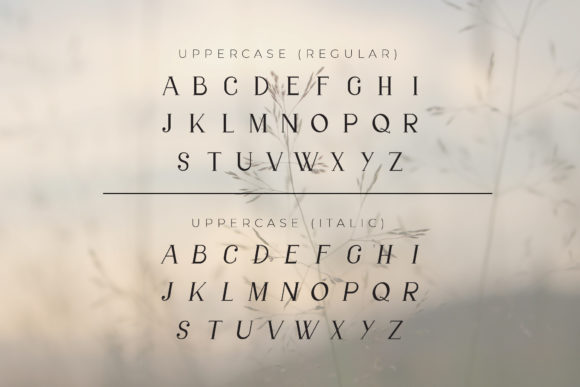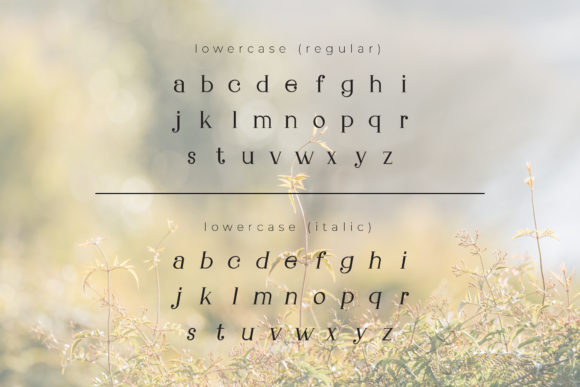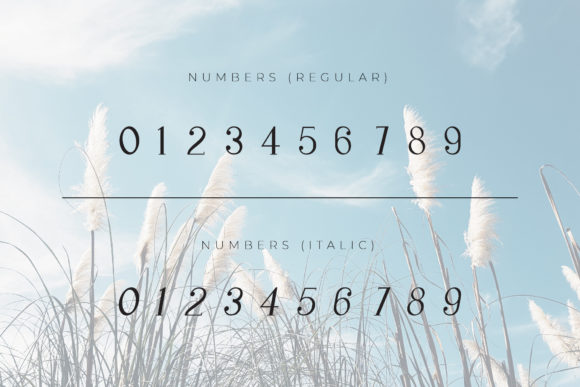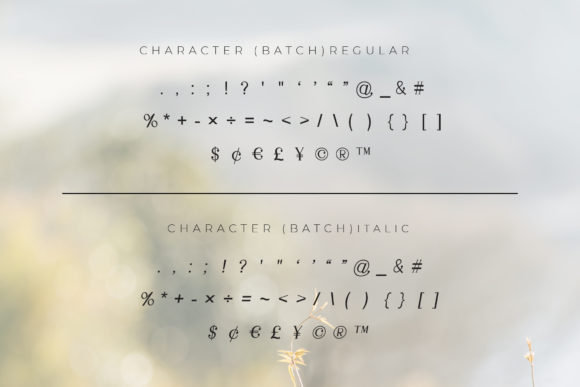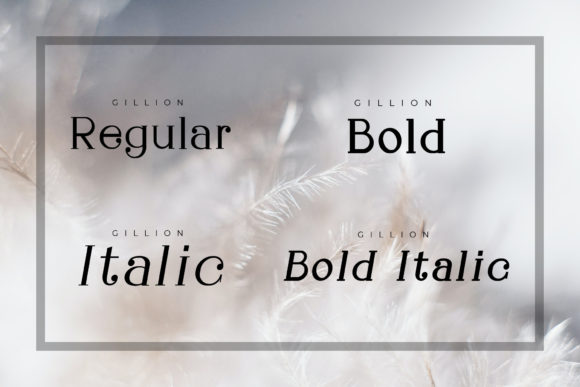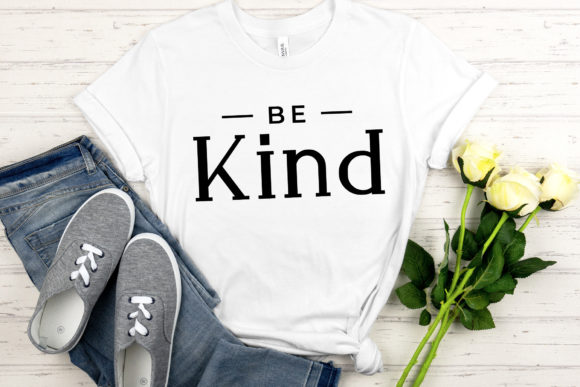
The Delicate Charm of Gillion Font: A Designer’s New Best Friend
I still remember the time I was working on a wedding invitation project, and my client asked for a font that was elegant, yet not too ornate. I scoured the internet, trying out font after font, but nothing seemed quite right. That was until I stumbled upon Gillion Font. Its delicate serifs and unique characters immediately caught my eye, and I knew I had found the perfect fit. In this article, I’ll share my experience with Gillion Font, its features, and how to make the most of it in your design projects.
An Honest Review of Gillion Font
- ✨ Delicate serifs that add a touch of elegance to any design
- ✅ Unique characters that set it apart from more traditional fonts
- 💫 Highly versatile and can be used for a wide range of projects, from t-shirts to wedding invitations
- 🎨 Beautiful on its own, but also pairs well with other fonts
While Gillion Font is a stunning addition to any design project, there are a few things to keep in mind:
- ⚠️ Some characters may appear a bit condensed, which can affect readability at smaller font sizes
- 🤔 Limited availability of certain OpenType features, such as ligatures or stylistic alternates
The Story Behind Gillion Font
Gillion Font was designed with the intention of creating a unique, elegant font that would add a touch of sophistication to any design project. Its creator was inspired by traditional serif fonts, but wanted to create something that was distinctly modern and fresh. The result is a font that’s both beautiful on its own and highly versatile.
Q: What type of projects is Gillion Font best suited for?
A: Gillion Font is highly versatile and can be used for a wide range of projects, including t-shirts, mugs, signs, greeting cards, wedding invitations, and more.
Q: Is Gillion Font available in different weights or styles?
A: Currently, Gillion Font is available in a single weight. However, its unique characters and elegant serifs make it a great choice for designers who want to add a touch of sophistication to their projects.
Q: Can I use Gillion Font in combination with other fonts?
A: Absolutely! Gillion Font pairs well with a wide range of fonts, from sans-serif fonts like Arial or Helvetica to other serif fonts like Lora or Merriweather.